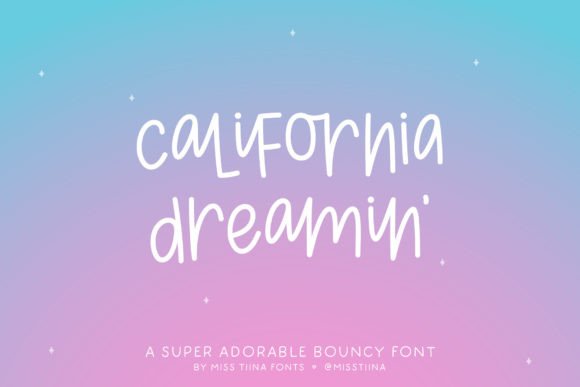
California Dreamin’ Font: Your New Creative Obsession
I’ll never forget the design project that led me to discover the California Dreamin’ font. I was working on a whimsical branding project for a beachside cafe, and I just couldn’t find the right font to capture that laid-back, West Coast vibe. That was until I stumbled upon California Dreamin’, and let me tell you, it was love at first sight! ✨
I’ve had the pleasure of working with California Dreamin’ on several projects, and here’s what I think:
• ✅ The dynamic, bouncy letterforms are perfect for adding a touch of playfulness to any design.
• ✅ The abundance of alternate connected characters takes the font to a whole new level of creativity.
• ✅ It’s incredibly versatile – I’ve used it for everything from logos to social media graphics.
Of course, no font is perfect, and California Dreamin’ has a few quirks:
• ⚠️ Some of the alternate characters can be a bit finicky to access, especially for beginners.
• 🤔 The font can be a bit overused, so be mindful of how you balance it with other design elements.
The Story Behind California Dreamin’
While the actual designer of California Dreamin’ remains a mystery, it’s easy to imagine the creative process behind this charming font. Perhaps the designer was sipping coffee on a sunny California beach, brainstorming ways to capture the carefree spirit of the West Coast. Whatever the inspiration, California Dreamin’ is a true gem in the world of typography.
Q: What makes California Dreamin’ so special? A: California Dreamin’ features dynamic, bouncy letterforms and a wide range of alternate connected characters, making it perfect for adding a touch of whimsy to your designs.
Q: Is California Dreamin’ difficult to use? A: While California Dreamin’ has a few quirks, it’s relatively easy to use, especially if you’re familiar with OpenType features and glyphs.